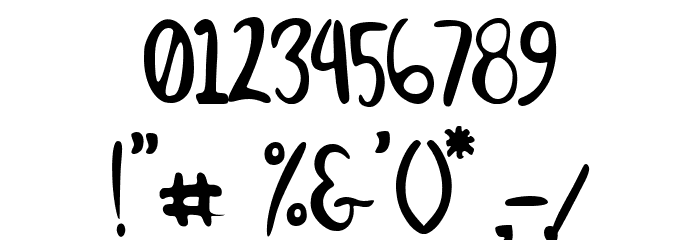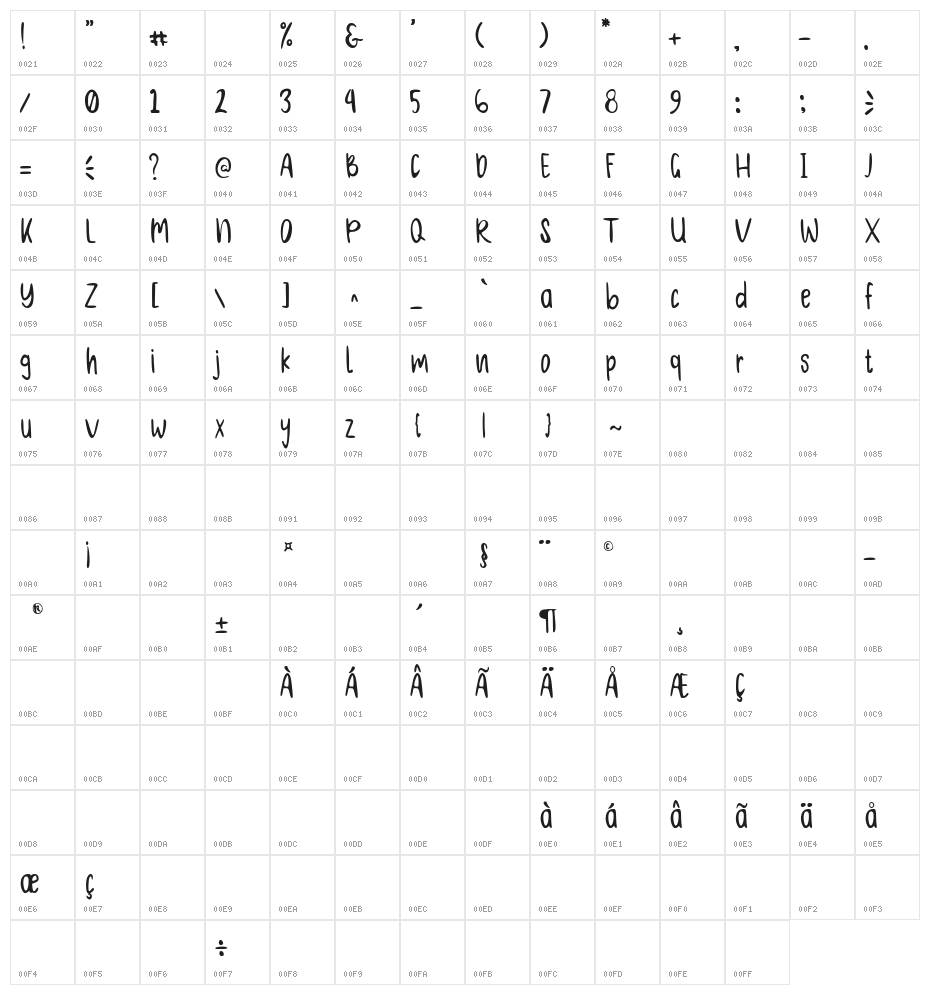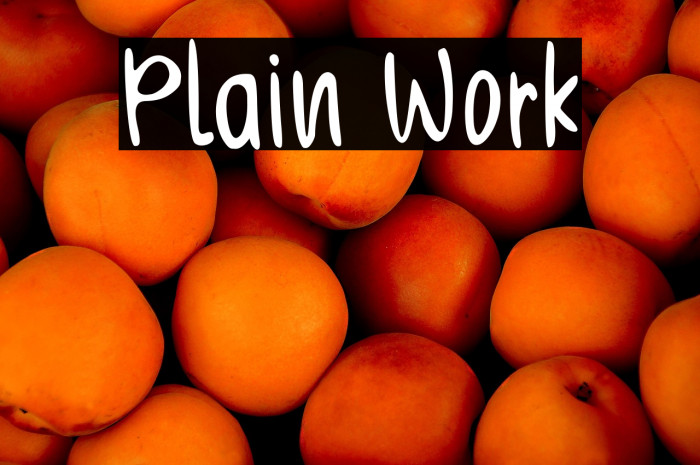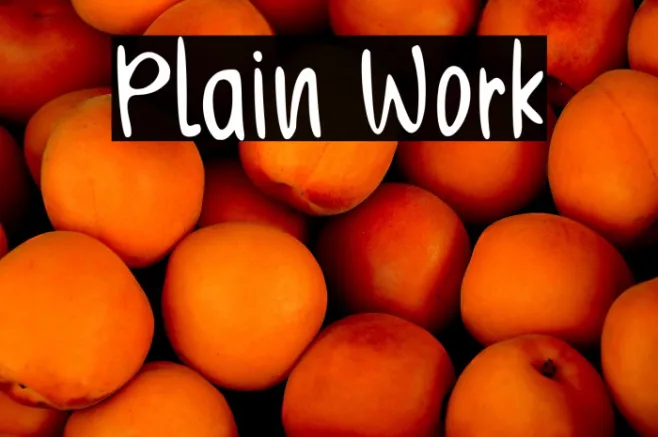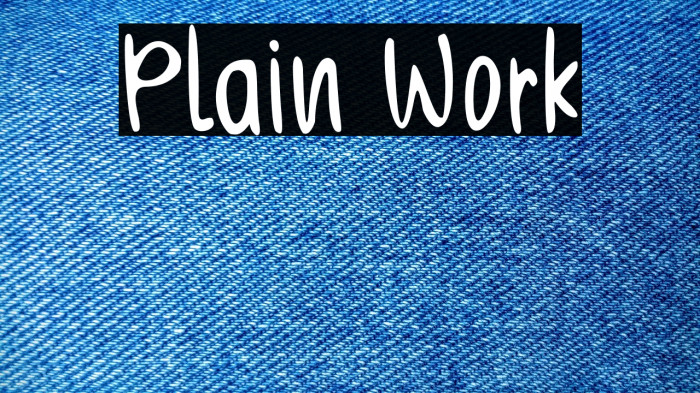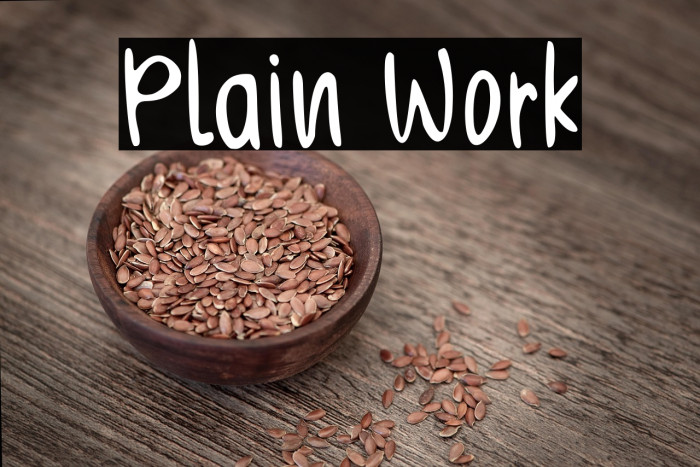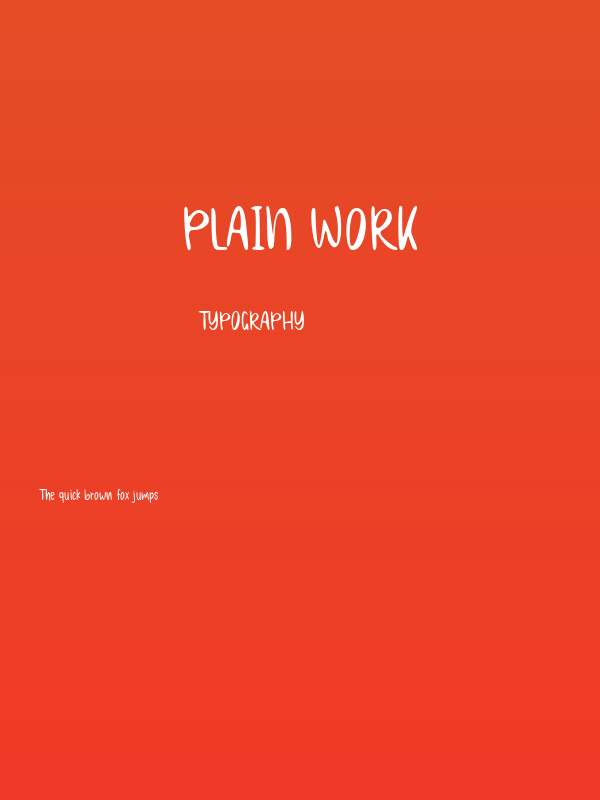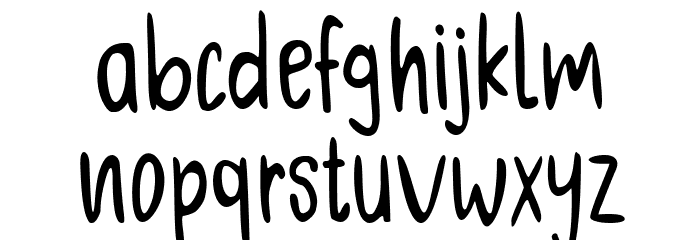
Plain Work Font
Plain Work Description
This font features a playful and casual handwritten style, characterized by its smooth curves and slightly uneven baseline, giving it a friendly and approachable appearance. The letters are bold and rounded, with a consistent stroke width that maintains readability while adding a touch of whimsy. The uppercase and lowercase letters are well-balanced, with a slight slant that enhances the informal feel. The numerals and special characters are designed to match the overall style, ensuring cohesion across all text elements. This font is ideal for projects that require a personal touch, such as invitations, greeting cards, or branding for creative businesses.
| Proposed Projects | Ideal for invitations, greeting cards, and creative branding. |